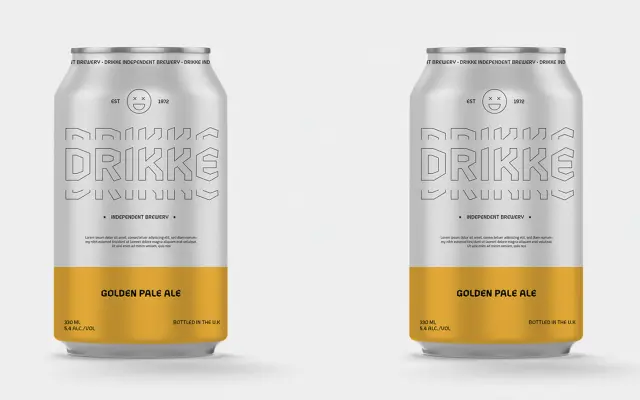
A geometric sans with blackletter-inflected details, offered in five weights with italics and an extended character set of over 500 glyphs per style.
Built on clean proportions and geometric construction, Zenga introduces subtle references to gothic blackletter forms to give it a degree of historical character without sacrificing legibility. Five weights from Thin to Black each include a matching italic, and every style ships with over 500 characters, five numeral variants with stylistic zeros, ten alternate characters and chess piece symbols as part of its OpenType feature set. Suited to editorial, branding and screen work where a geometric sans needs a touch of distinctive texture.
Zenga is built on a geometric sans foundation with subtle blackletter-inspired details drawn from gothic tradition, placing it firmly in the geometric sans subcategory despite its historical references.